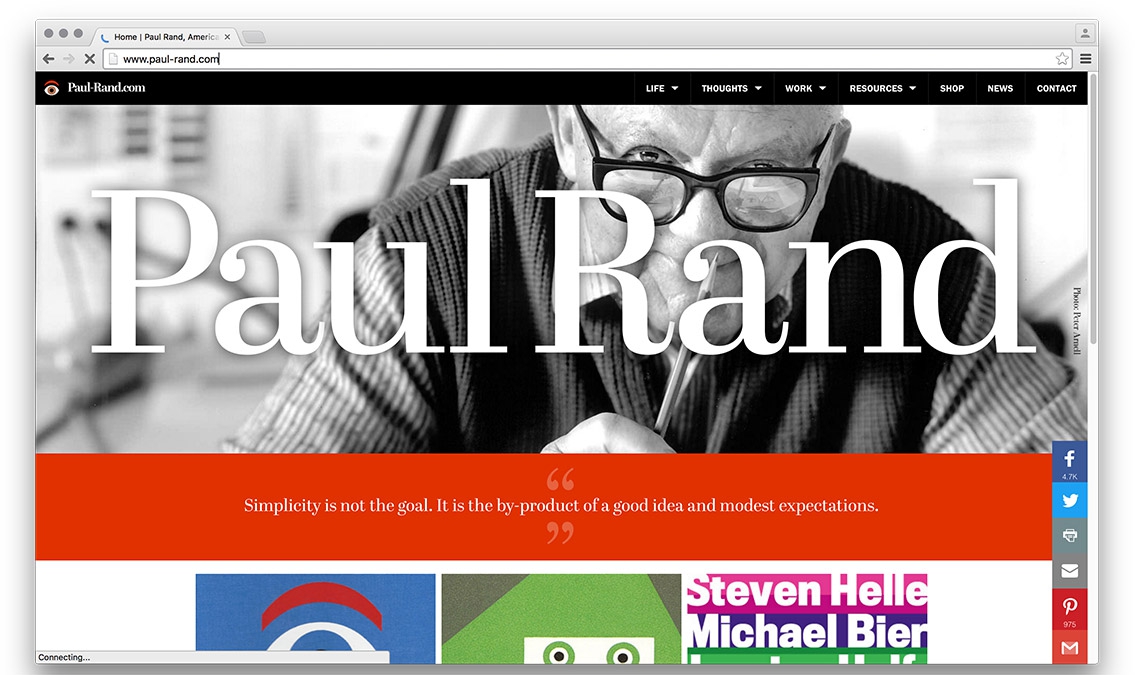
Paul Rand
Abril in use in Paul Rand’ dedicated website
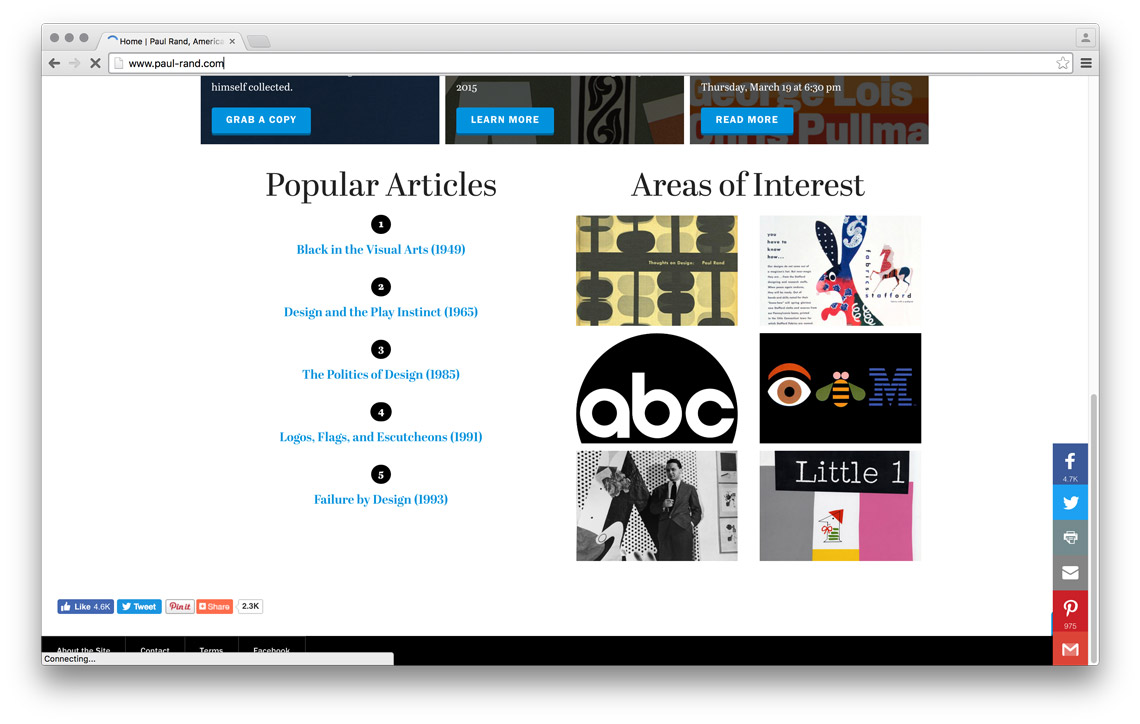
This dedicated website is a tribute and online archive to Paul Rands life and professional achievements. Created by graphic designer Daniel Lewandowski the design is ‘simple and accessible’. Abril Display and Abril Text has been combined in this neat and elegant example of responsive design.